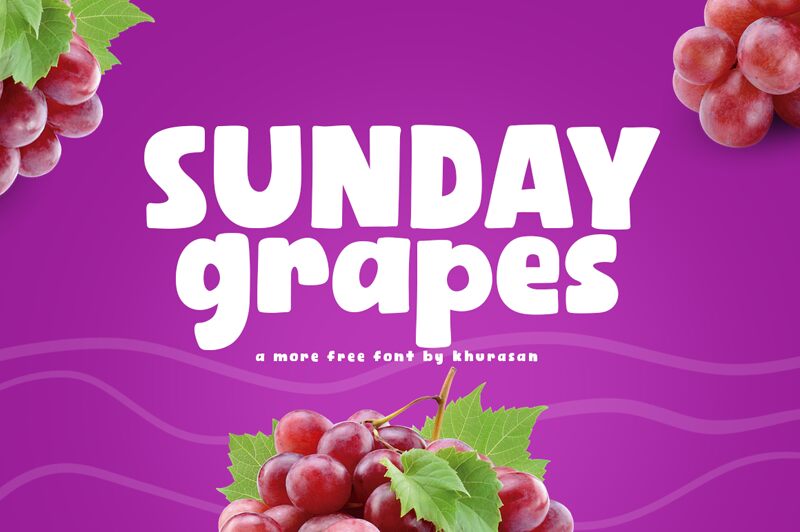
Sunday Grapes
Sunday Grapes, a delightful creation by Khurasan, is the perfect font for your playful and imaginative projects. With its extra-bold weight and cartoon style, this display font adds a touch of whimsy to any design.
Whether you're designing children's books, party invitations, or animated logos, Sunday Grapes will bring your creations to life. Its charming curves and eye-catching appeal make it an excellent choice for branding campaigns aimed at capturing attention and conveying a fun-loving spirit.
Let Sunday Grapes infuse your designs with joy and creativity!